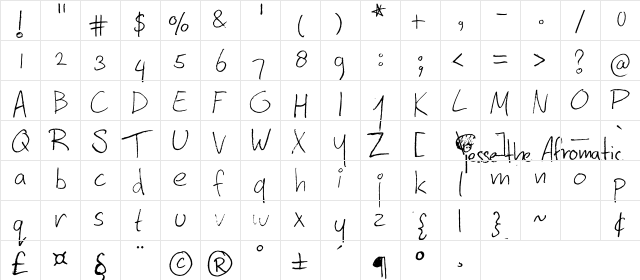
Afromatic Regular
Design Context for Afromatic Typeface
Afromatic is a composed and adaptable typeface that performs quietly and consistently across a wide range of design contexts.